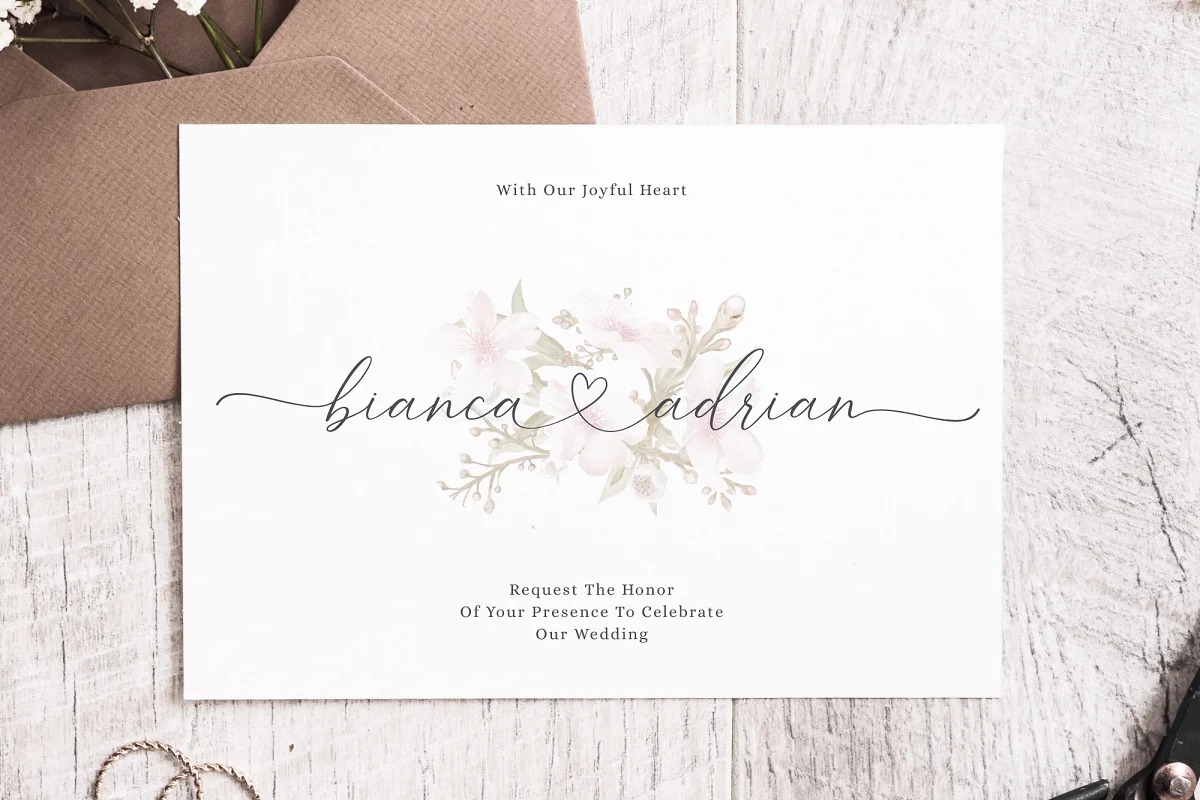
Beloved Journey Font
Beloved Journey Calligraphy Font
This is a handwritten script typeface inspired by the character’s style which shows the romance of a relationship through hand strokes. This font also has a special character, namely connecting hearts which is very suitable for use in romantic and essential moments in your life. We also added some alternatives and ligatures that are very cool and can be applied easily. This font is very suitable for wedding invites, branding designs, poster design, fashion design, decor, signature, watermark, quotes and more.